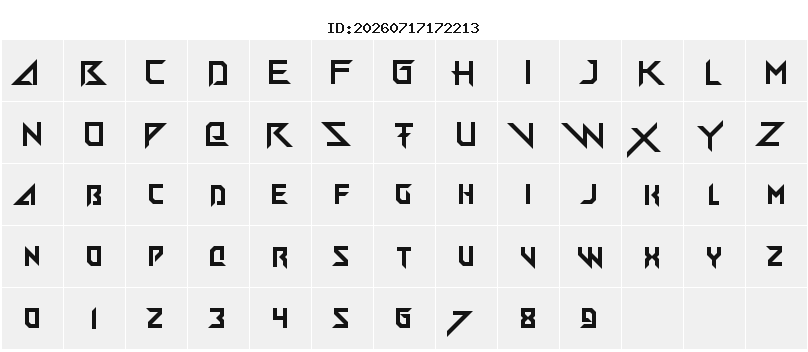
• Font Name: Big Quicksand
• Full Font Name: Big Quicksand Regular
• Designer: Andrew McCluskey
• Description: ‚ÄúBig Quicksand‚Äù was built with FontStruct
About Big Quicksand.ttf
Big Quicksand.ttf is a modern, elegant sans-serif font designed for ultimate readability and visual harmony. Perfect for branding, headlines, web design, and print materials.